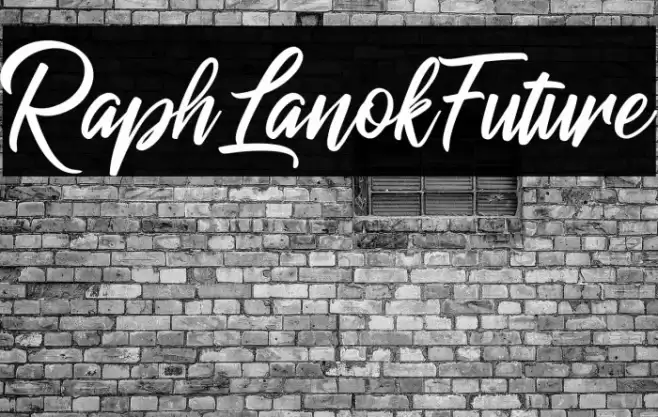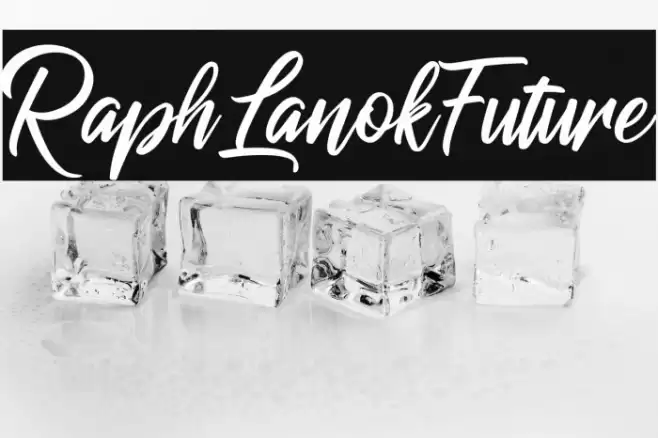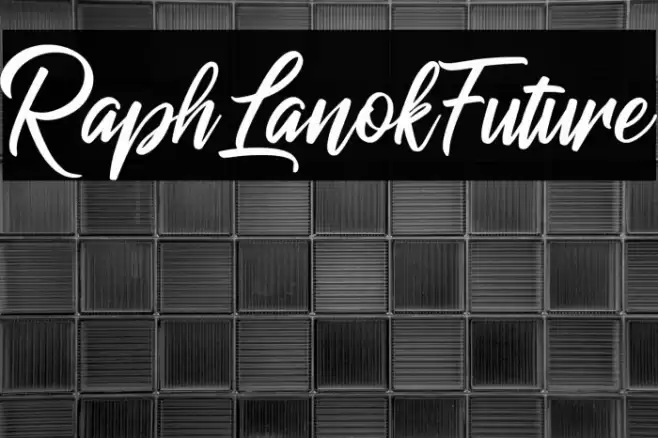
RaphLanokFuture Font
RaphLanokFuture Description
This font features a dynamic and fluid script style, characterized by its elegant and flowing letterforms. The uppercase letters exhibit a bold and confident presence, with sweeping curves and a slight slant that adds a sense of motion. The lowercase letters maintain a cohesive and harmonious look, complementing the uppercase with their smooth connections and rounded shapes. The numerals are equally expressive, with a consistent stroke weight that ensures readability. Special characters are thoughtfully integrated, maintaining the overall aesthetic. The font's design is both modern and timeless, making it versatile for various applications.
A dynamic script font with elegant, flowing letterforms and a modern aesthetic from Uncategorized fonts.
- Proposed Projects: Ideal for branding, invitations, greeting cards, and any project requiring a personal, elegant touch.
- Use Case: Logos, Invitations, Branding